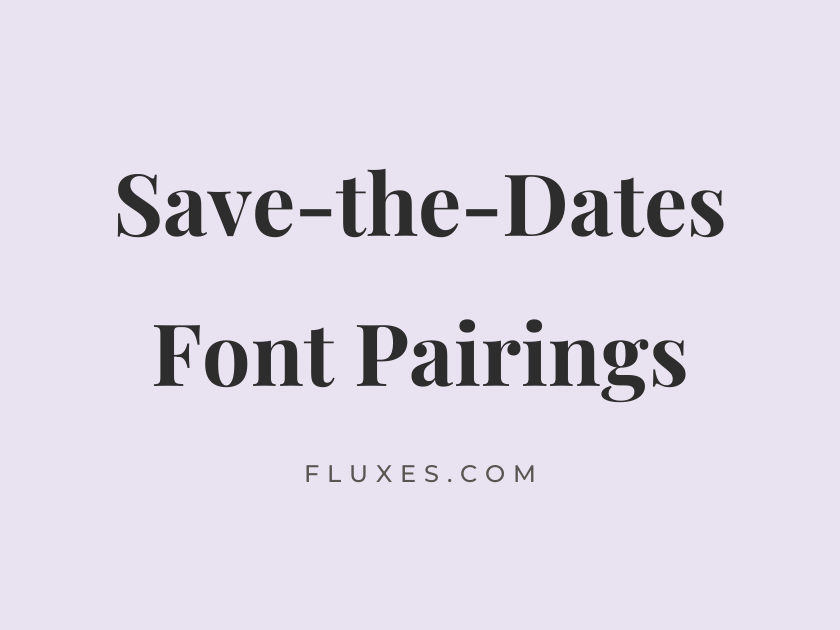
35 Best Font Pairings for Save-the-Dates
Save-the-dates set the tone for a wedding before a single flower or venue detail is chosen, and typography does most of that work. The right pairing balances a distinctive display face for names and dates with a calm, legible text font for details like location and RSVP information. Below are combinations spanning romantic script, classic serif, modern minimal, and art deco moods, all built from free Google Fonts pairings that hold up in print and on screen.
1. Playfair Display + Lato
Playfair Display’s high-contrast strokes give names and dates real presence, while Lato’s even, humanist letterforms keep supporting details easy to scan. This pairing suits formal or black-tie weddings and works equally well on letterpress or digital invitations.
2. Cormorant Garamond + Montserrat
An old-style serif softened by geometric sans body copy creates a pairing that feels both heirloom and current. It reads especially well for garden or vineyard weddings where romance meets a modern sensibility.
3. Great Vibes + Josefin Sans
A flowing script naturally needs a restrained partner, and Josefin Sans’ narrow, art deco proportions give the names room to shine without competing. This is a classic script and sans combination for save-the-dates with a vintage romance feel.
4. Alex Brush + EB Garamond
Alex Brush has a looser, handwritten quality, so pairing it with the warm, literary texture of EB Garamond keeps the overall look intimate rather than overly formal. Good for outdoor or destination weddings.
5. Bodoni Moda + Karla
Bodoni Moda’s sharp, fashion-editorial contrast pairs cleanly with Karla’s understated grotesque forms, giving a stationery suite a modern, slightly editorial edge. This combination suits city weddings and minimalist color palettes.
6. Abril Fatface + Nunito Sans
Abril Fatface brings bold, confident weight to a headline while Nunito Sans’ rounded, friendly letterforms keep the mood approachable rather than severe. It works nicely for playful, colorful save-the-dates.
7. Marcellus + Raleway
Marcellus carries a quiet classical dignity that pairs naturally with Raleway’s elegant, slightly geometric lowercase. Both share a refined, understated character suited to museum weddings or evening receptions.
8. Parisienne + Poppins
Parisienne’s soft, bouncy script needs a sturdy geometric anchor, and Poppins provides exactly that without dulling the charm. This pairing feels celebratory and works well for spring and summer weddings.
9. Cinzel + Lato
Cinzel’s inscriptional, Roman capital forms lend gravity to a headline, balanced by Lato’s neutral warmth in the body text. This combination fits formal or destination weddings with a classical setting.
10. Dancing Script + Quicksand
Dancing Script’s casual, cheerful loops pair well with Quicksand’s rounded geometric simplicity, keeping the overall tone light and friendly. It suits casual or backyard weddings.
11. Libre Baskerville + Work Sans
Libre Baskerville was designed for screen legibility, so it sits comfortably beside the equally practical Work Sans, giving the pairing a dependable, editorial calm. Good for weddings with a literary or bookish theme.
12. Playfair Display + Noto Sans
Swapping in Noto Sans alongside Playfair Display keeps the same display drama but trades a slightly warmer body font for a crisper, more corporate-adjacent feel. This variation suits weddings held at modern venues.
13. Cormorant + Mulish
Cormorant’s delicate, calligraphic detailing pairs with Mulish’s clean, low-contrast body text to keep long paragraphs of logistics readable. The combination feels light and airy, ideal for beach or garden settings.
Test scripts and decorative serifs at the actual print size before finalizing, since some flourishes that look beautiful on screen can lose legibility at postcard scale. When in doubt, choose the pairing with more contrast between heading and body weight, since that contrast is what makes a two-font layout read clearly at a glance.